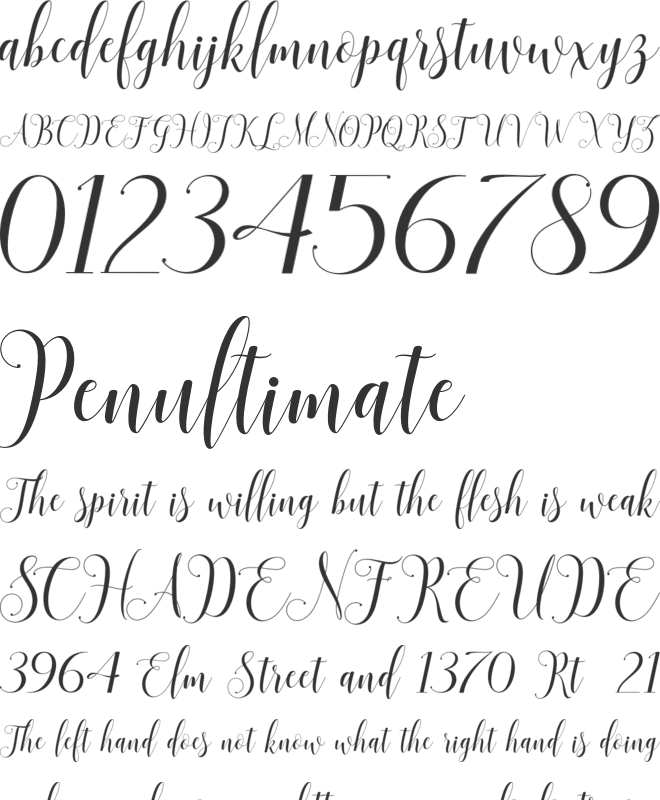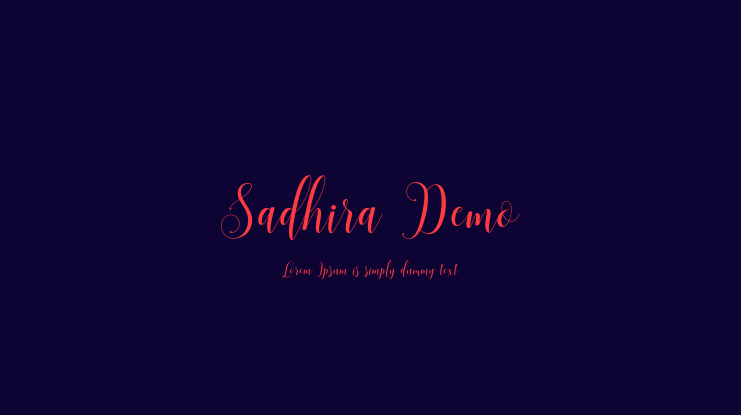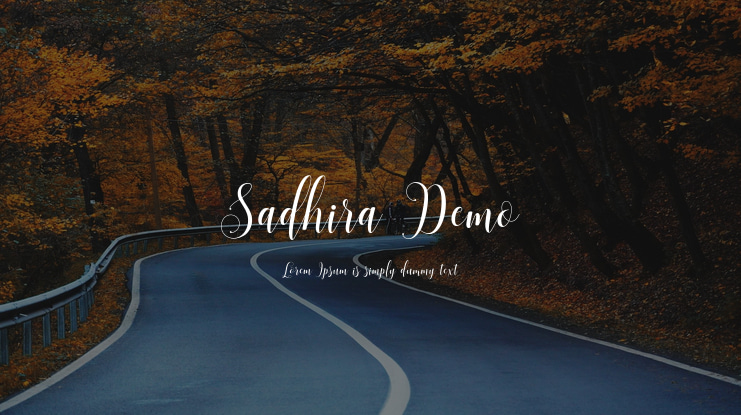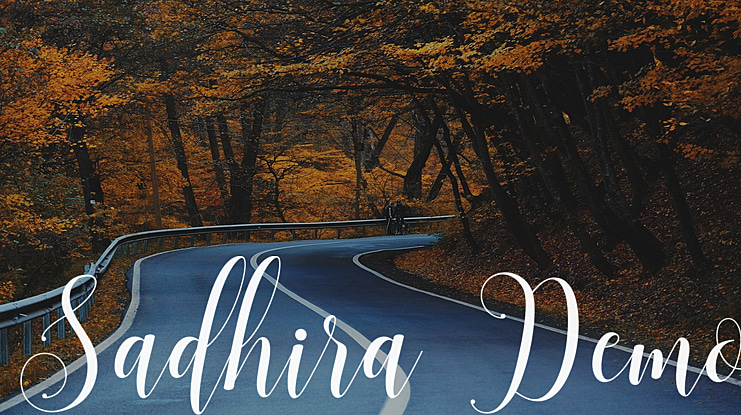
Sadhira Demo Font
Sadhira Script is modern script font, every single letters have been carefully crafted to make your text looks beautiful. With modern script style this font will perfect for many different project, example: weddings, invitations, greeting cards, posters, name card, quotes, blog header, branding, logo, fashion, apparel, letter, stationery, etc.